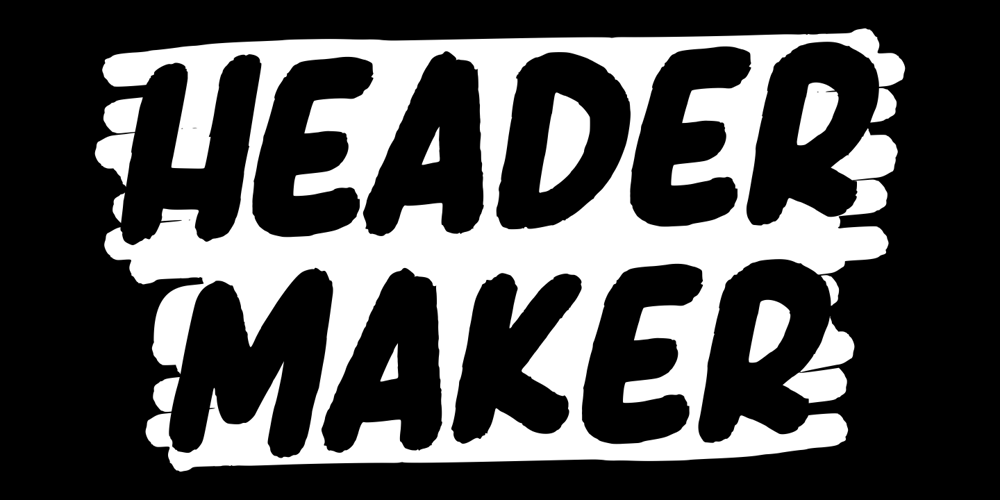
Header Marker Font Family was designed by Risman Ginarwan and published by Garisman Studio. Header Marker contains 2 styles and family package options. Header Maker combines rough and bold curves with a fresh urban edge; delivering a stylish script which is guaranteed to add an eye-catching appeal to your logo designs, brand imagery, quotes, product packaging, merchandise & social media posts.